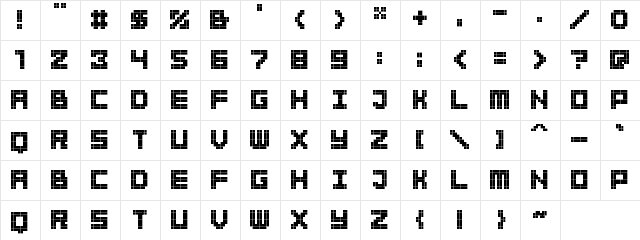
BitBold Regular Font Preview
BitBold Regular
BitBold Regular Font Details
Design Context for BitBold Typeface
BitBold is a composed and adaptable typeface that performs quietly and consistently across a wide range of design contexts. Its bold stroke weight gives it real presence on the page.